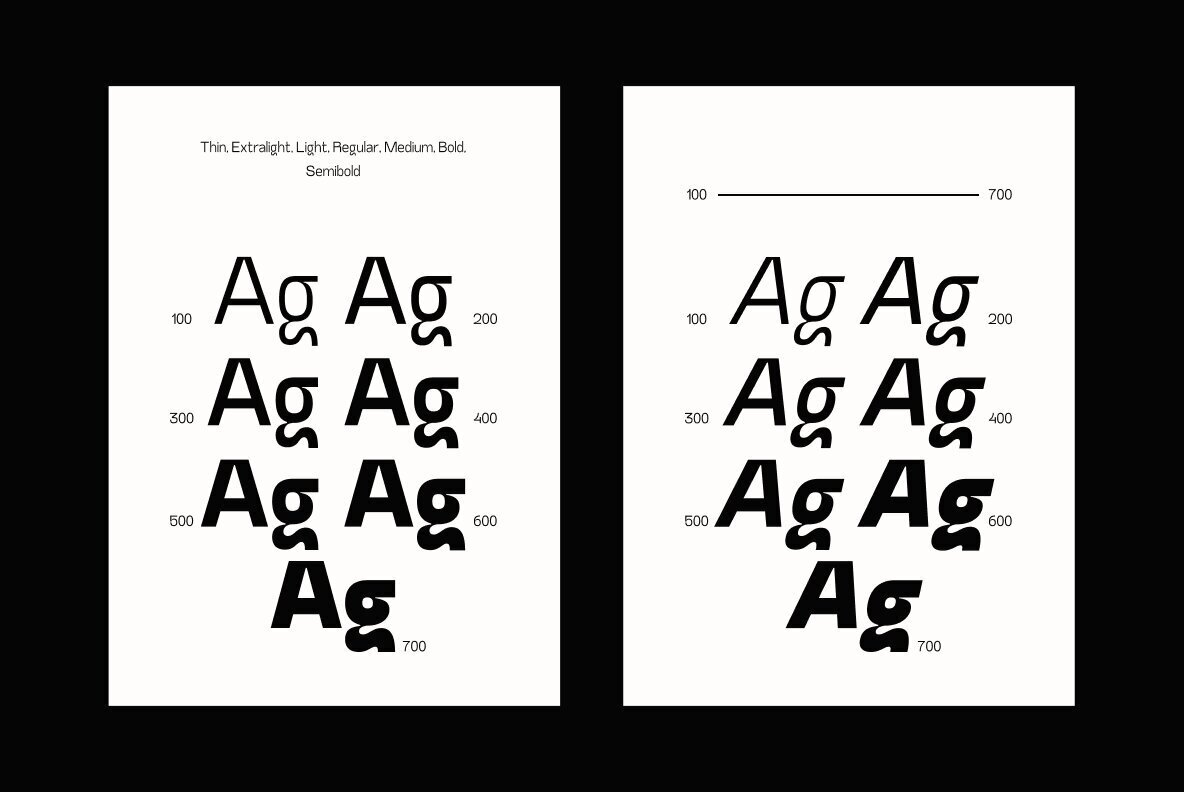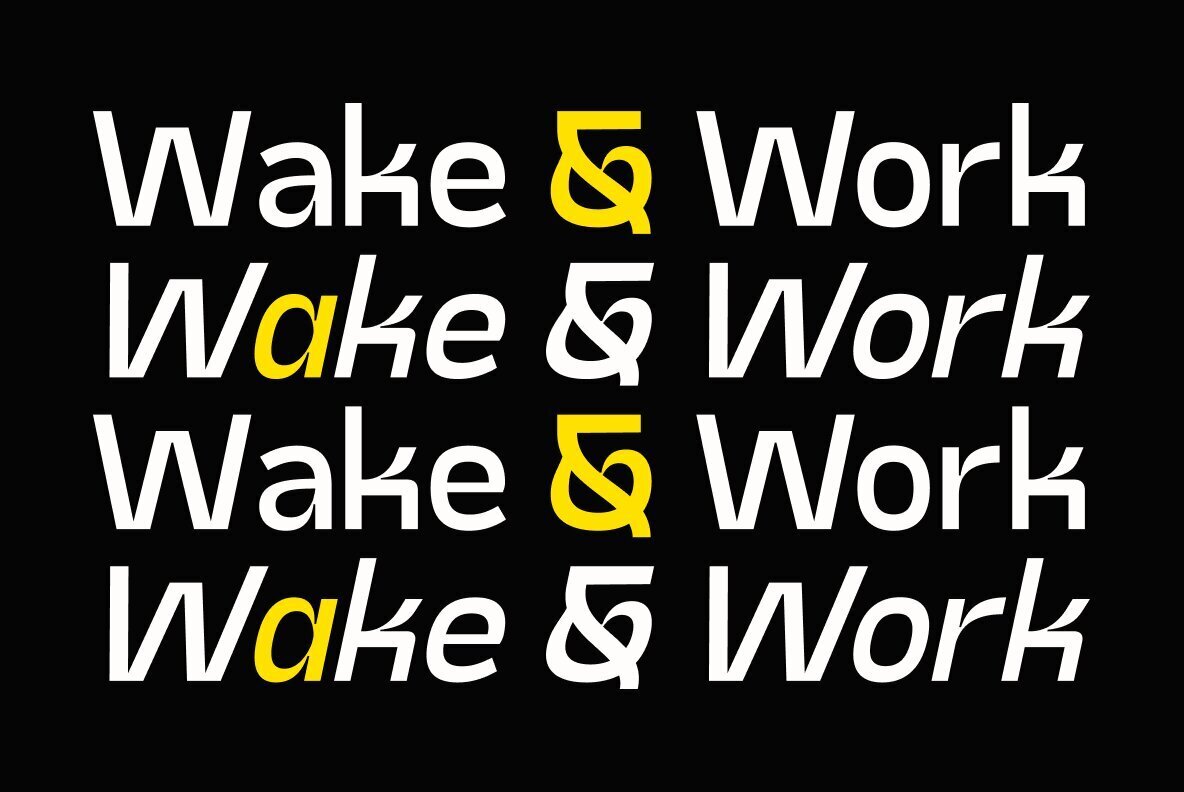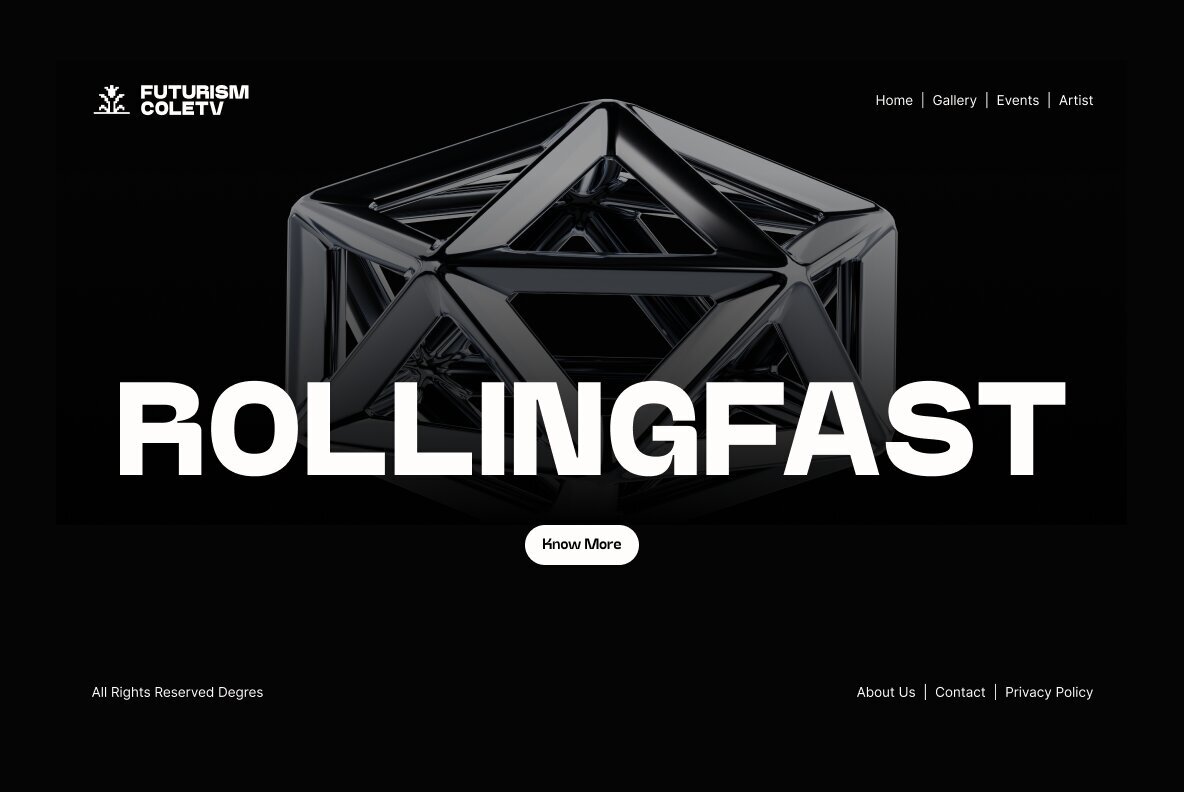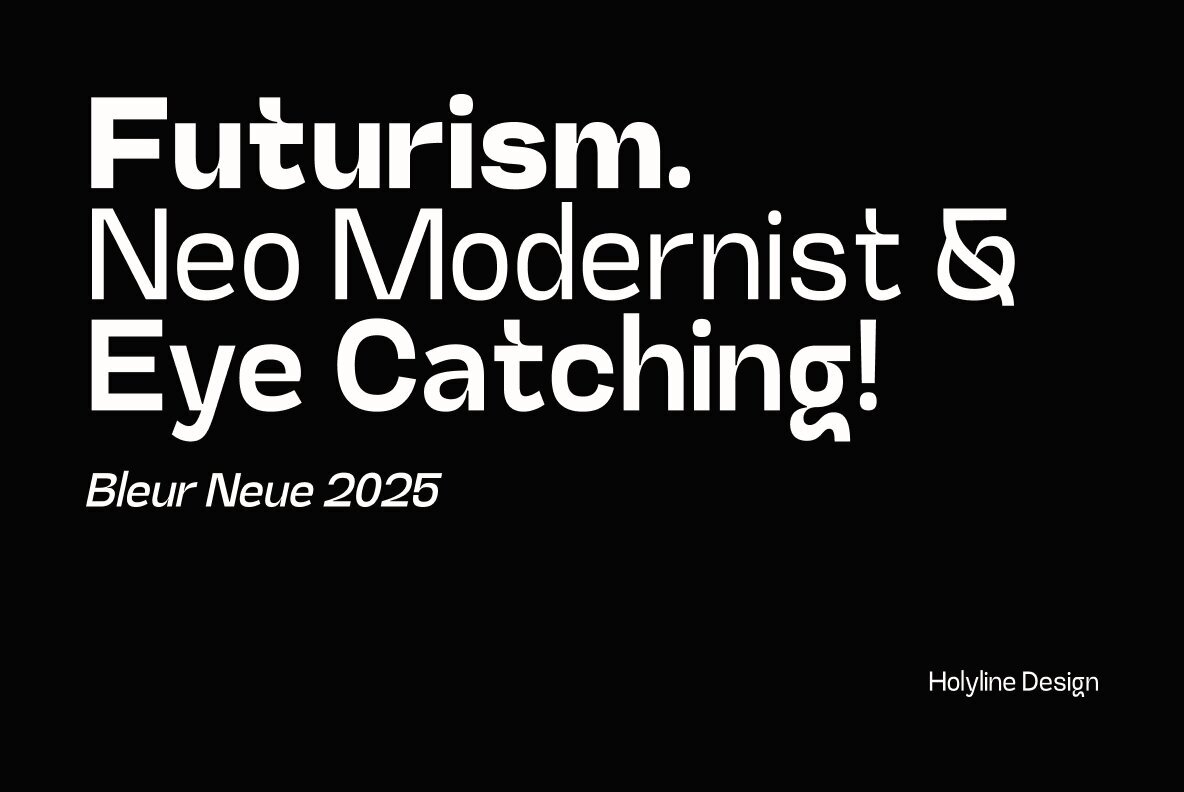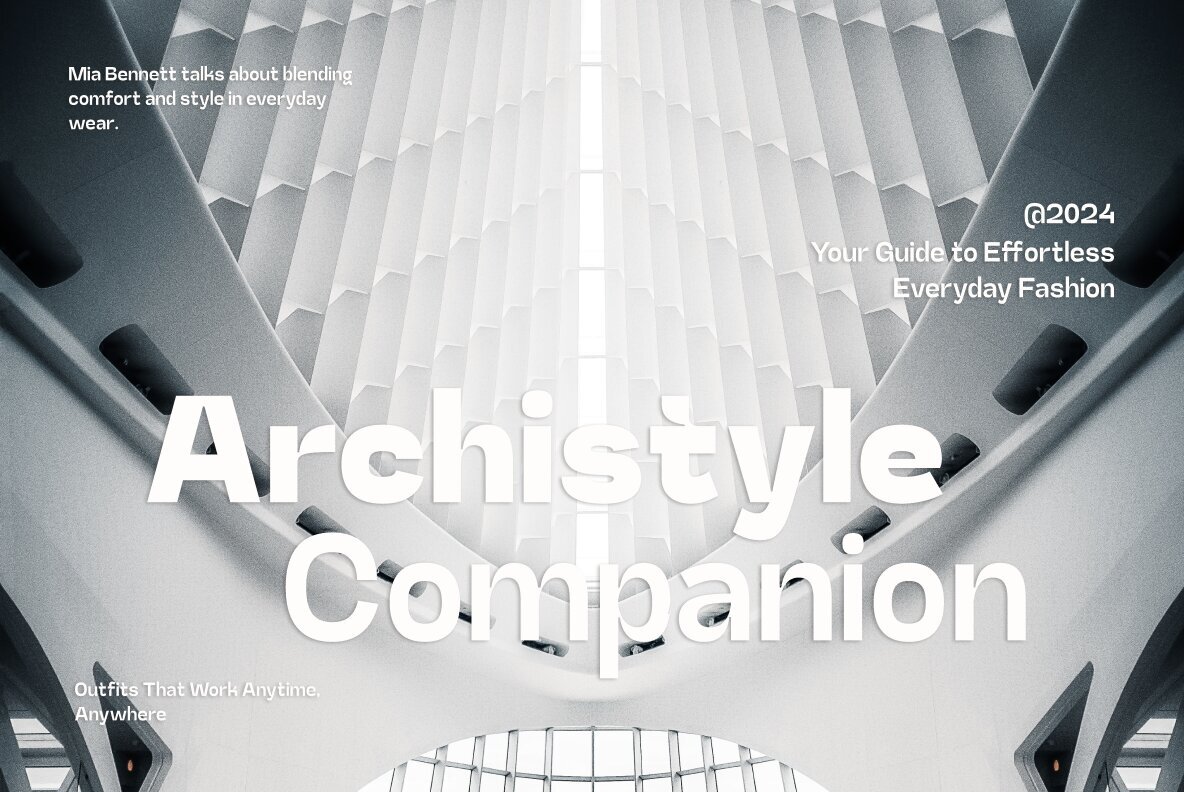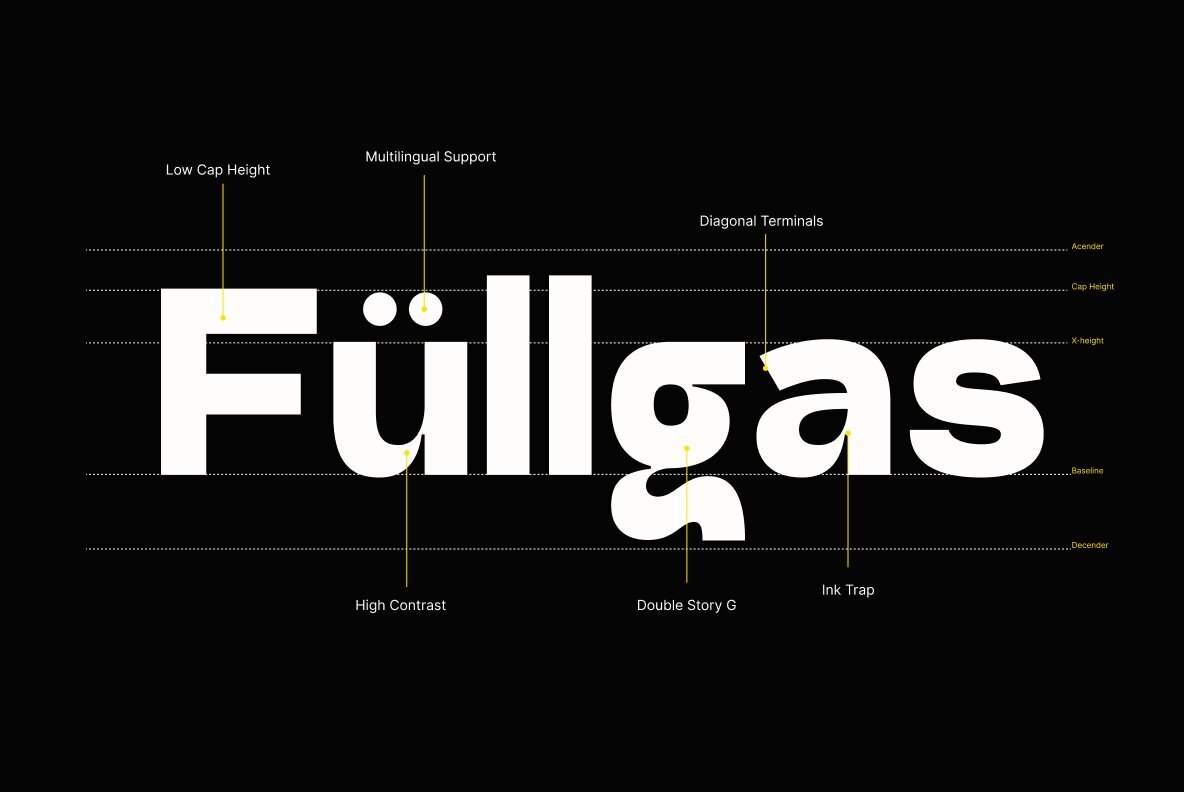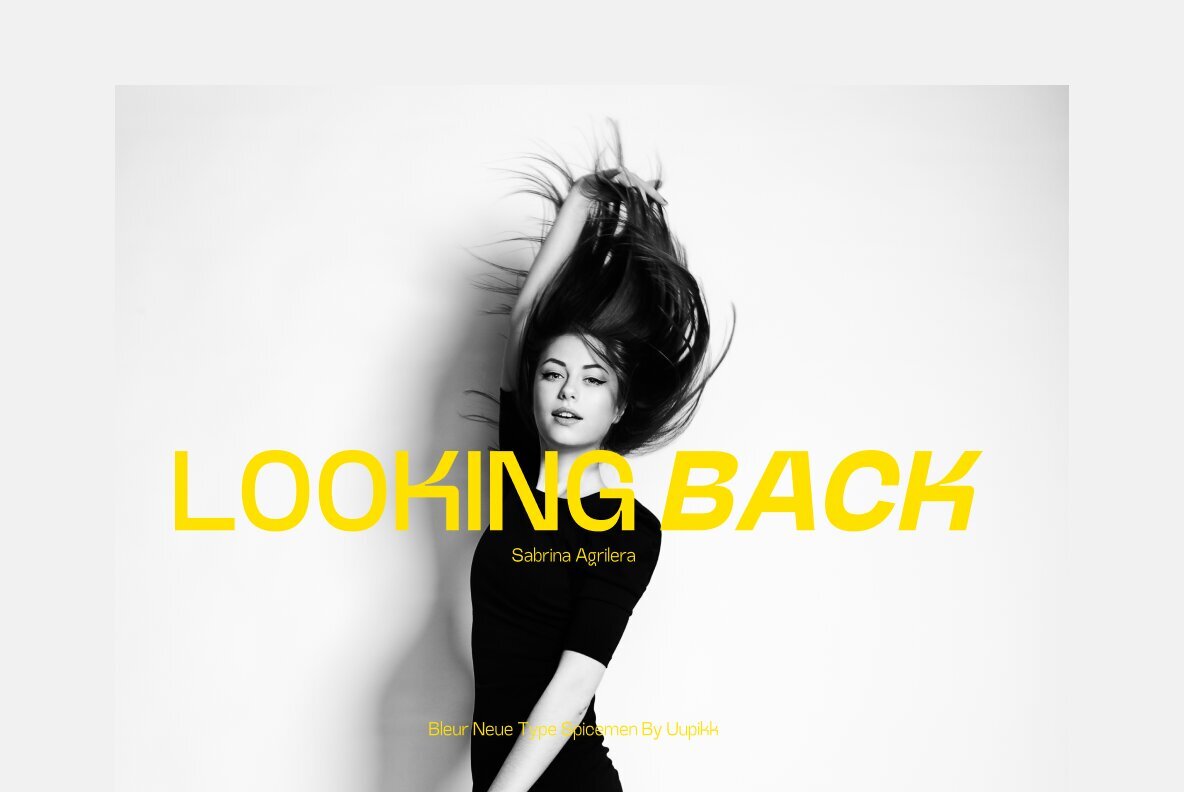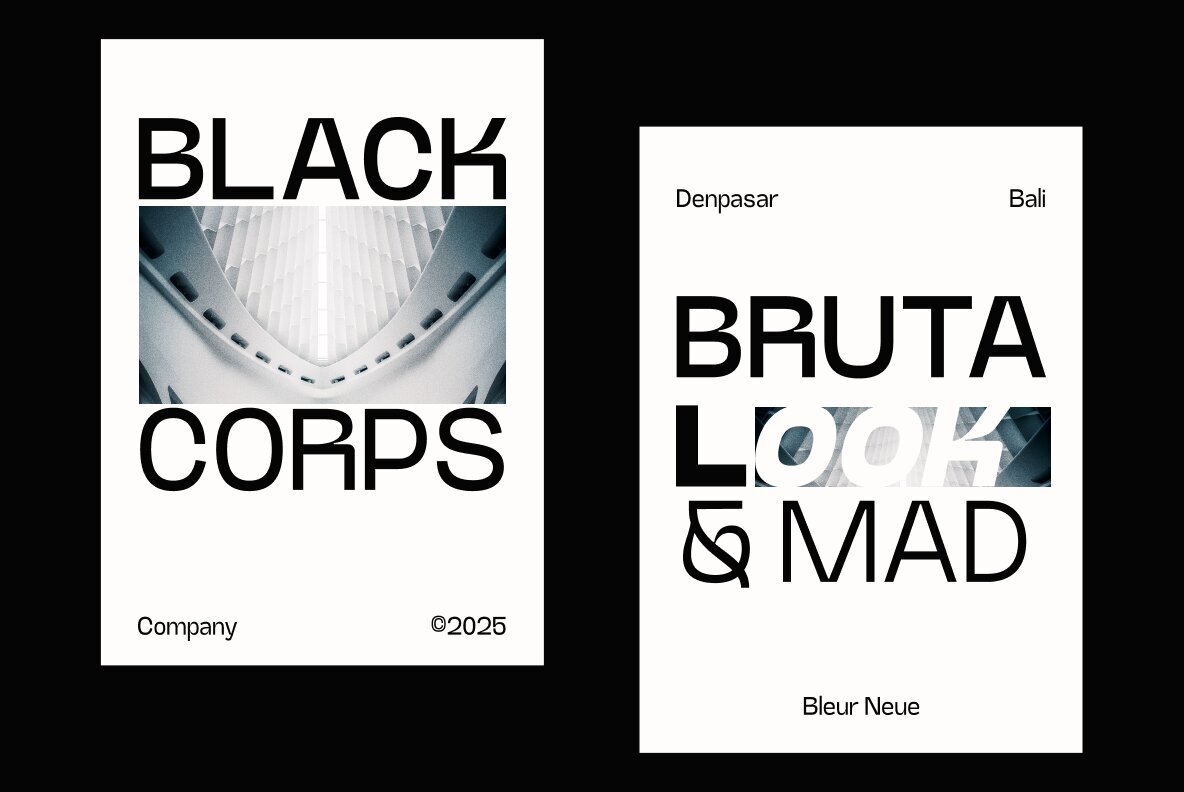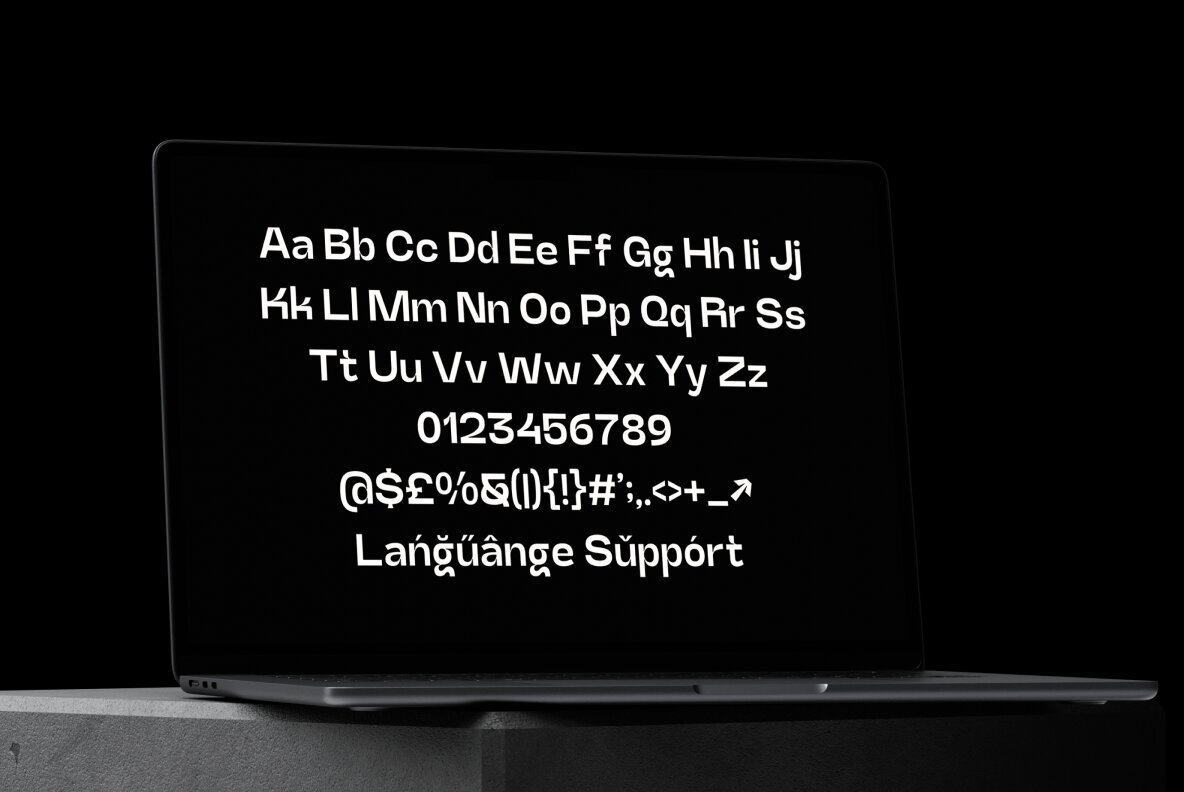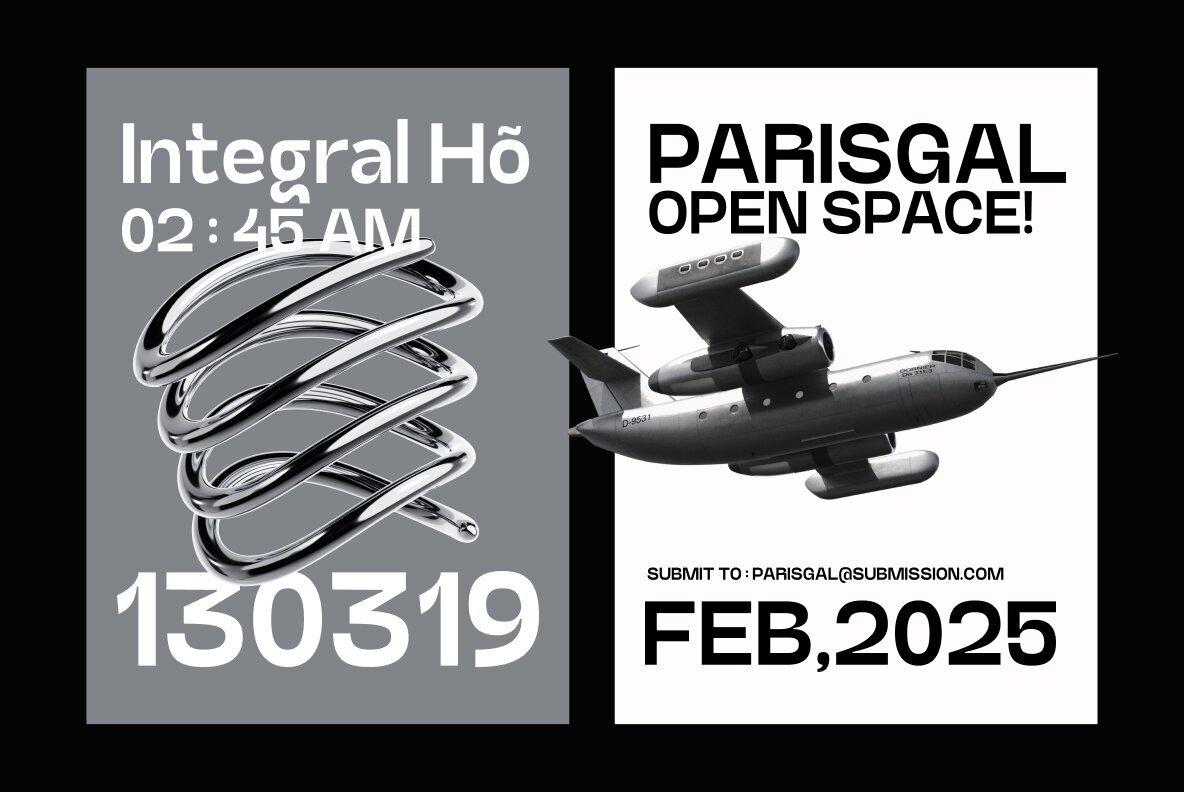
Bleur Neue Font
Bleur Neue is a explorative sans serif display font that embodies the essence of neo-modern typography and minimalist design. With its sharp structure and refined details, this typeface is perfect for creating striking, contemporary visuals. Designed with a strong uppercase presence, Bleur Neue ensures high impact while maintaining balance with its uppercase and lowercase character set. The font comes in 7 weights, from thin to bold, along with matching slant styles, totaling 14 fonts. Ideal for branding, editorial layouts, and modern typographic experiments, Bleur Neue delivers a sleek, forward-thinking aesthetic that enhances any design project.